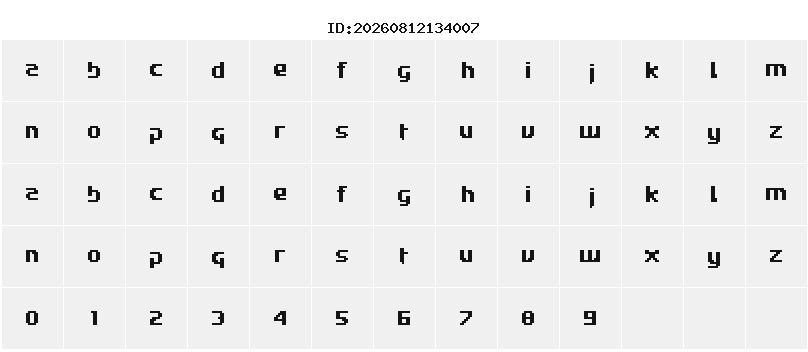
• Designer: Caveras / Cliff Modes
• Description: RoadWC98 by Caveras - based on the original main text font used in the FIFA: Road to World Cup 98 video game for the SNES (XYZ Productions/Electronic Arts, 1997).